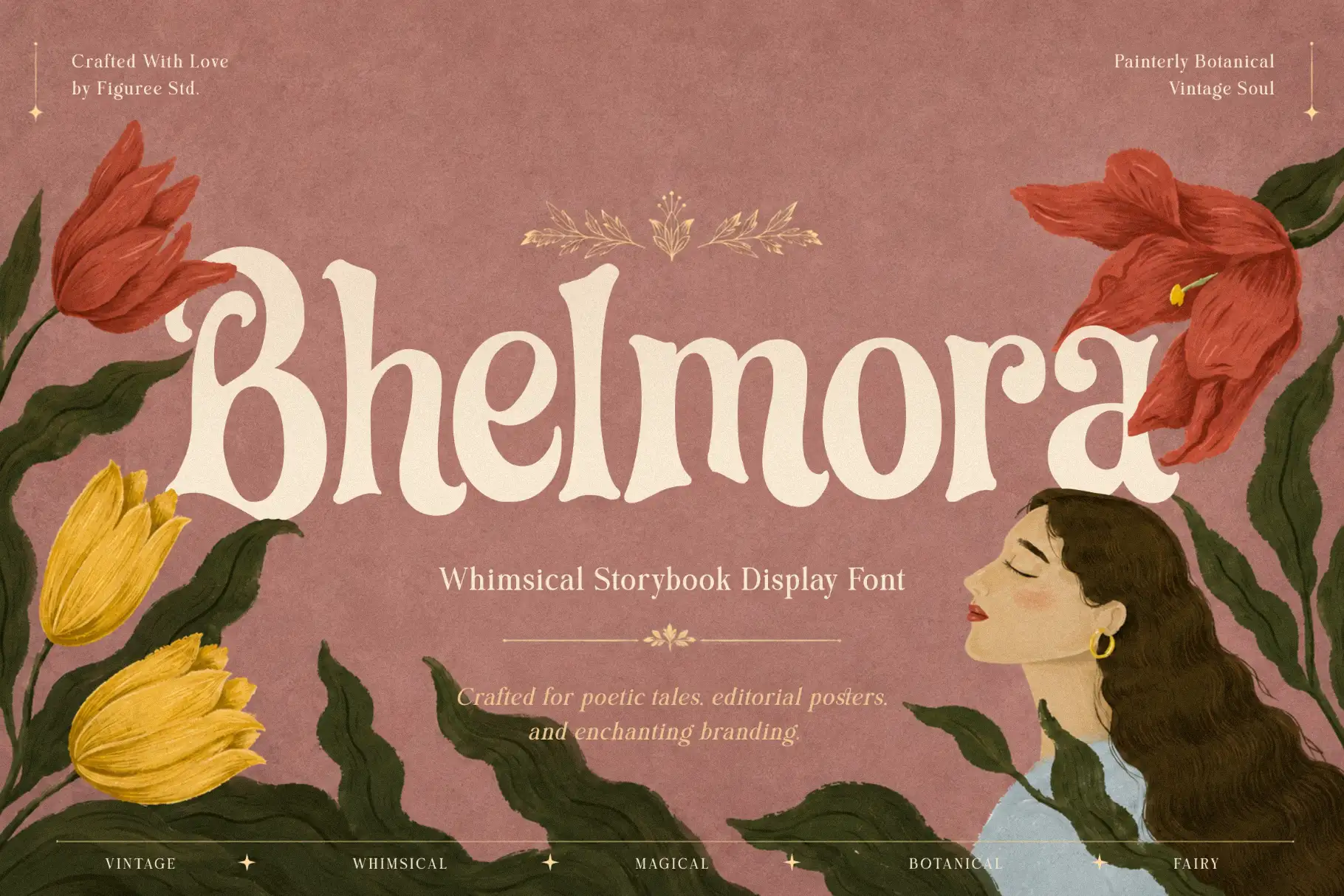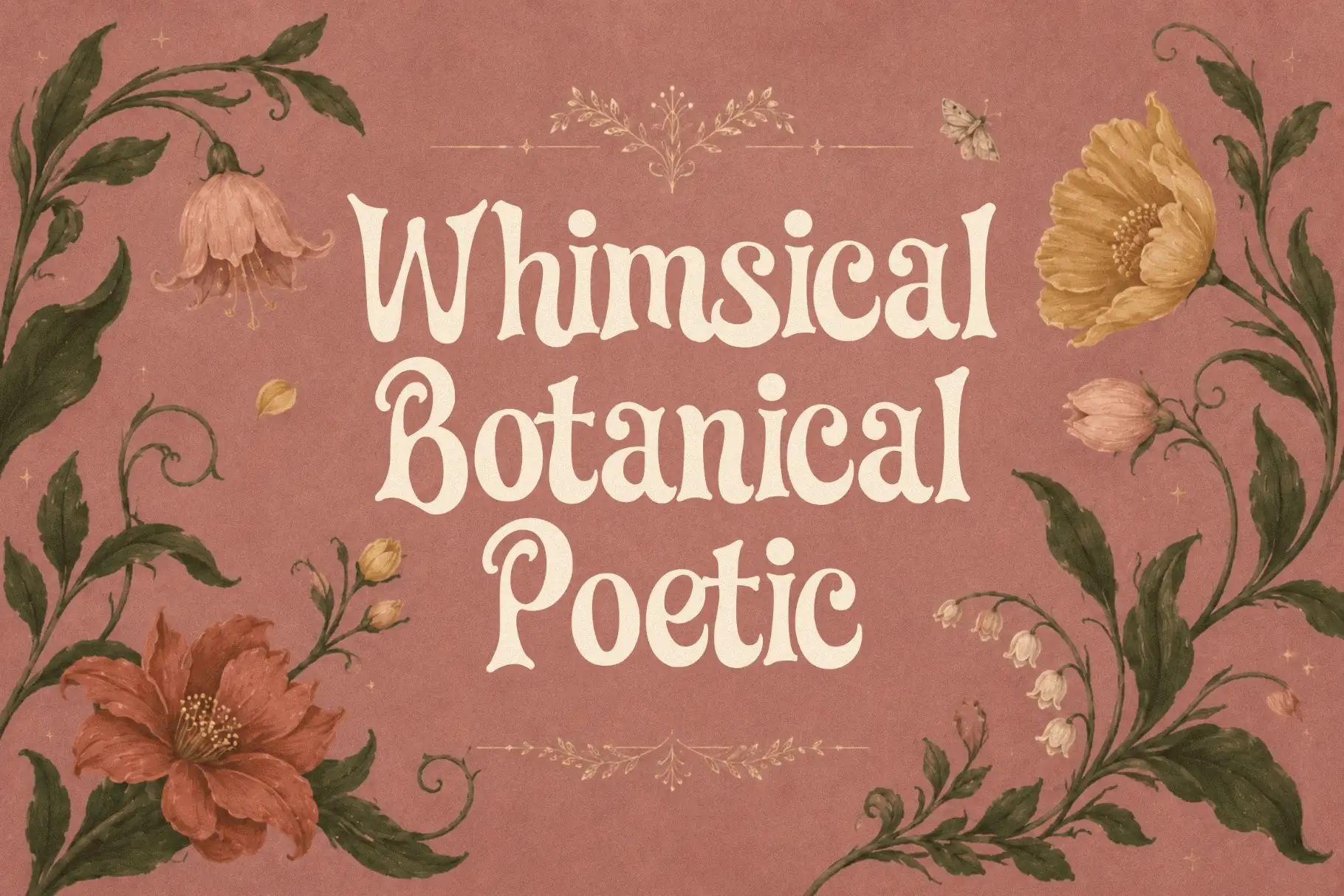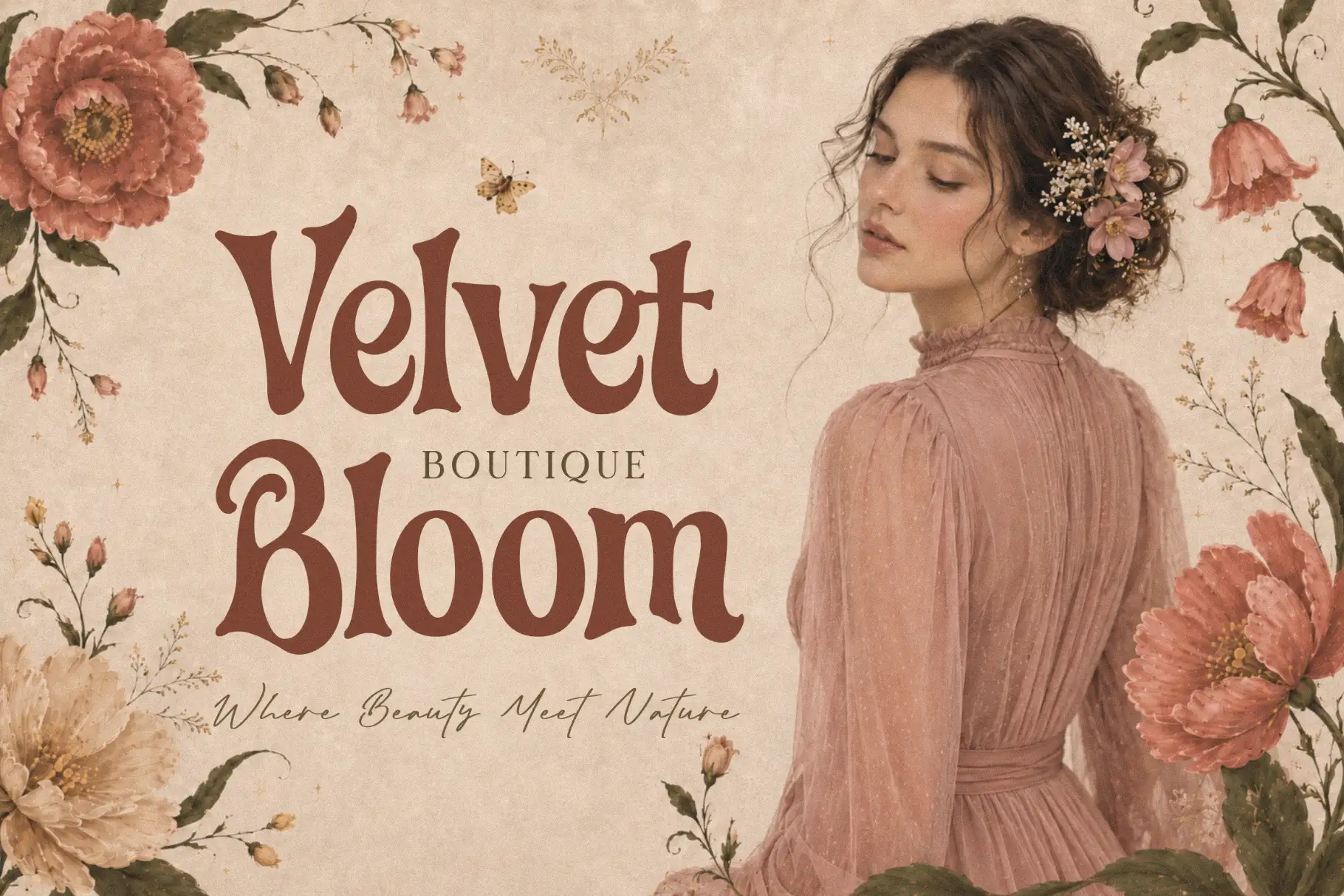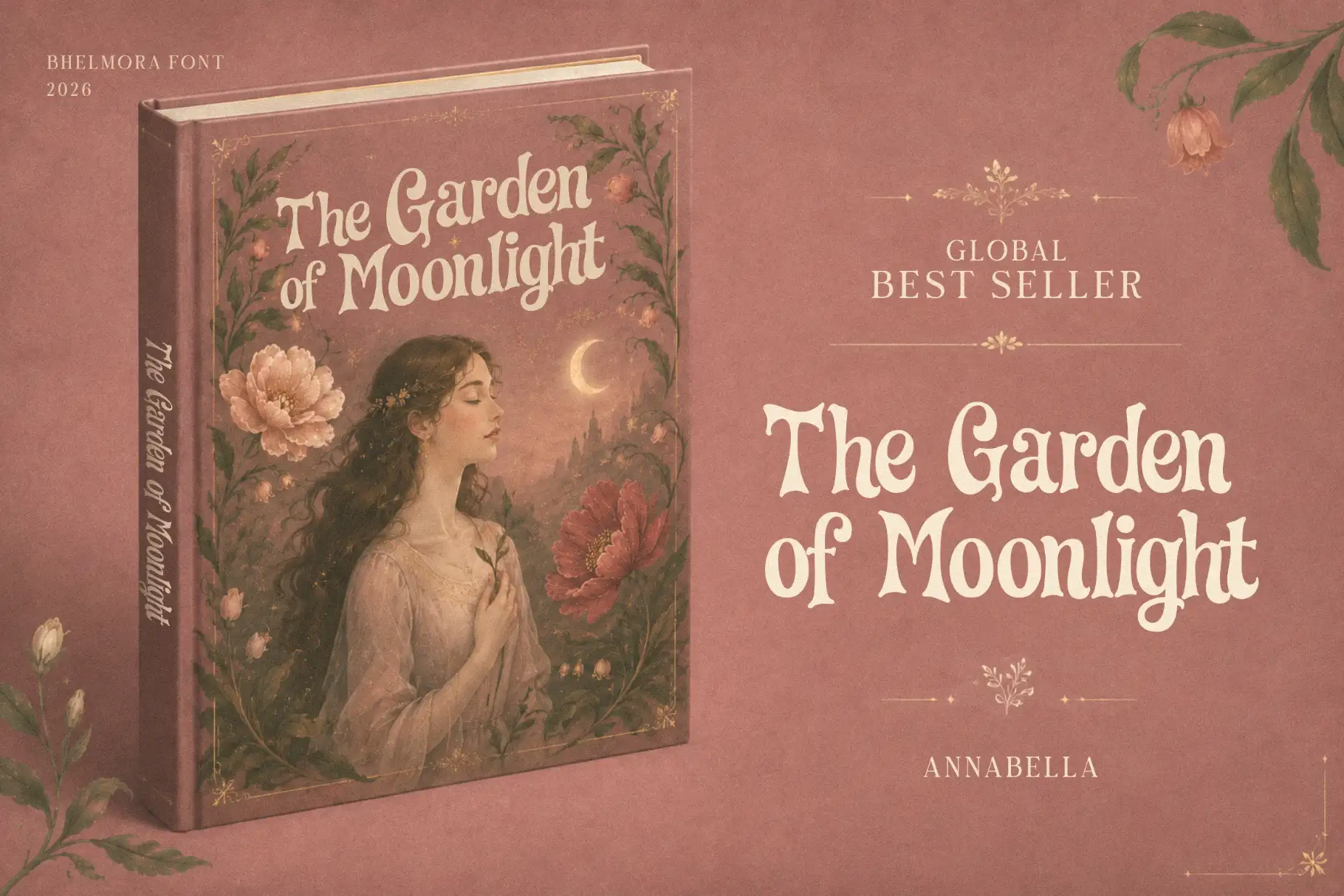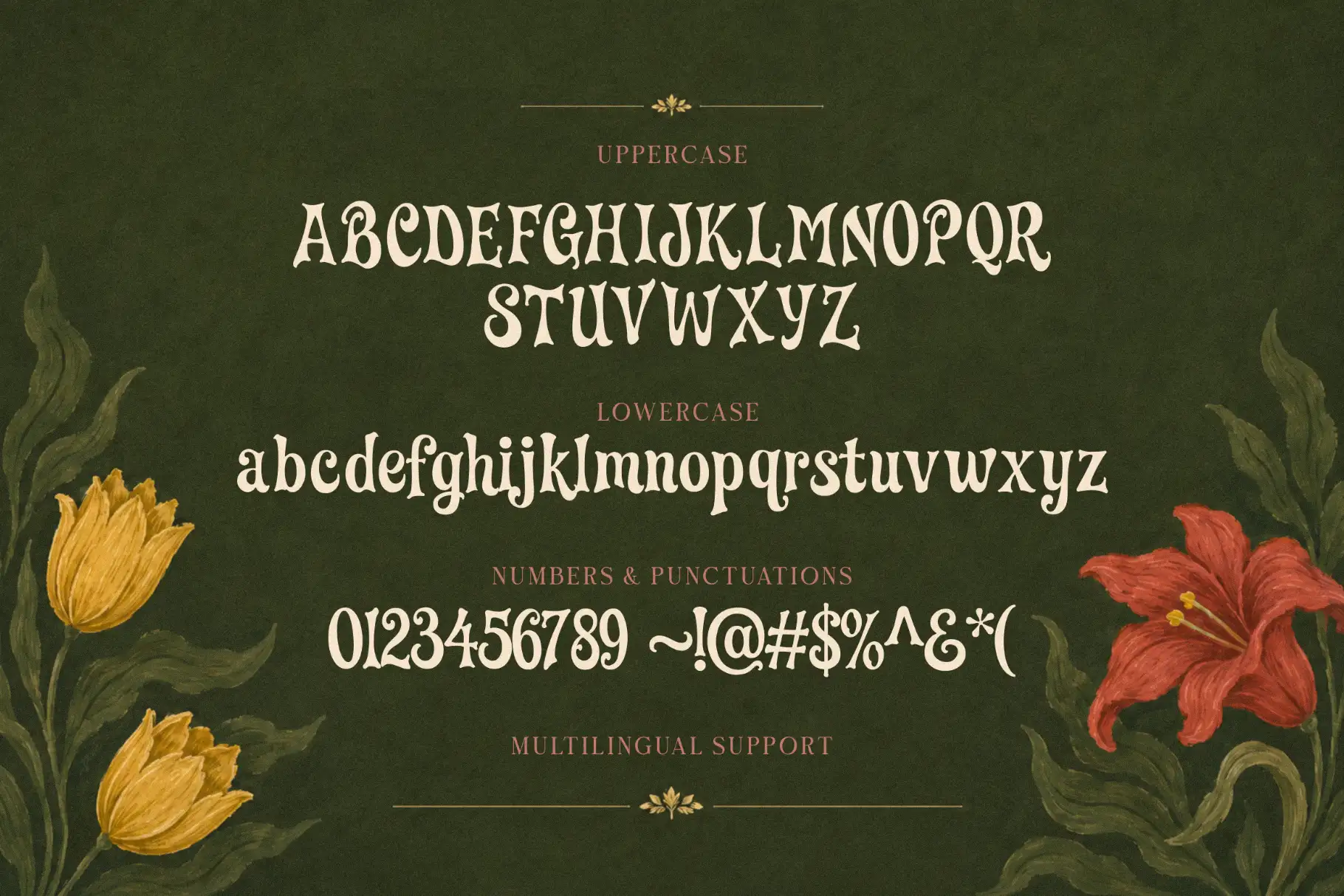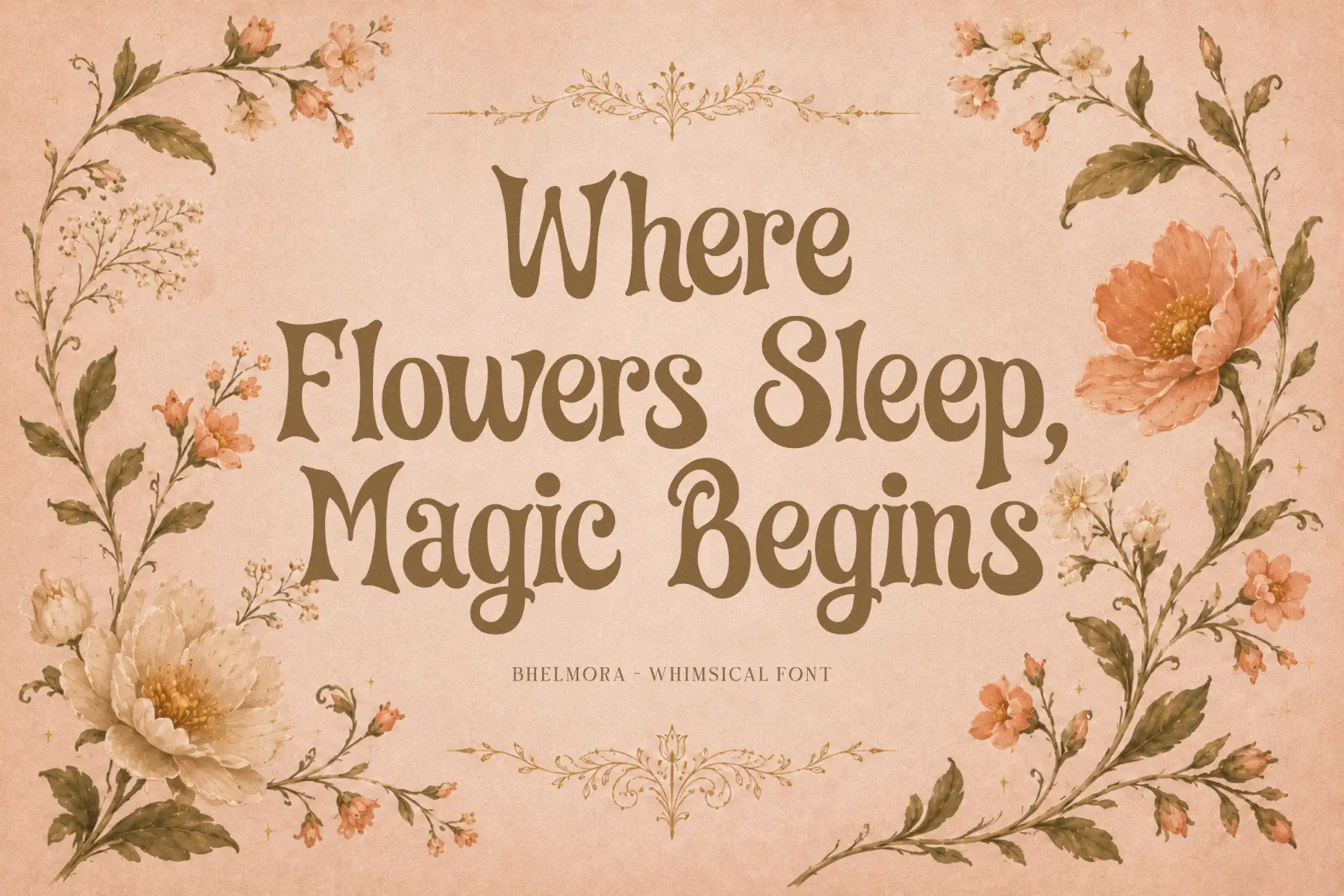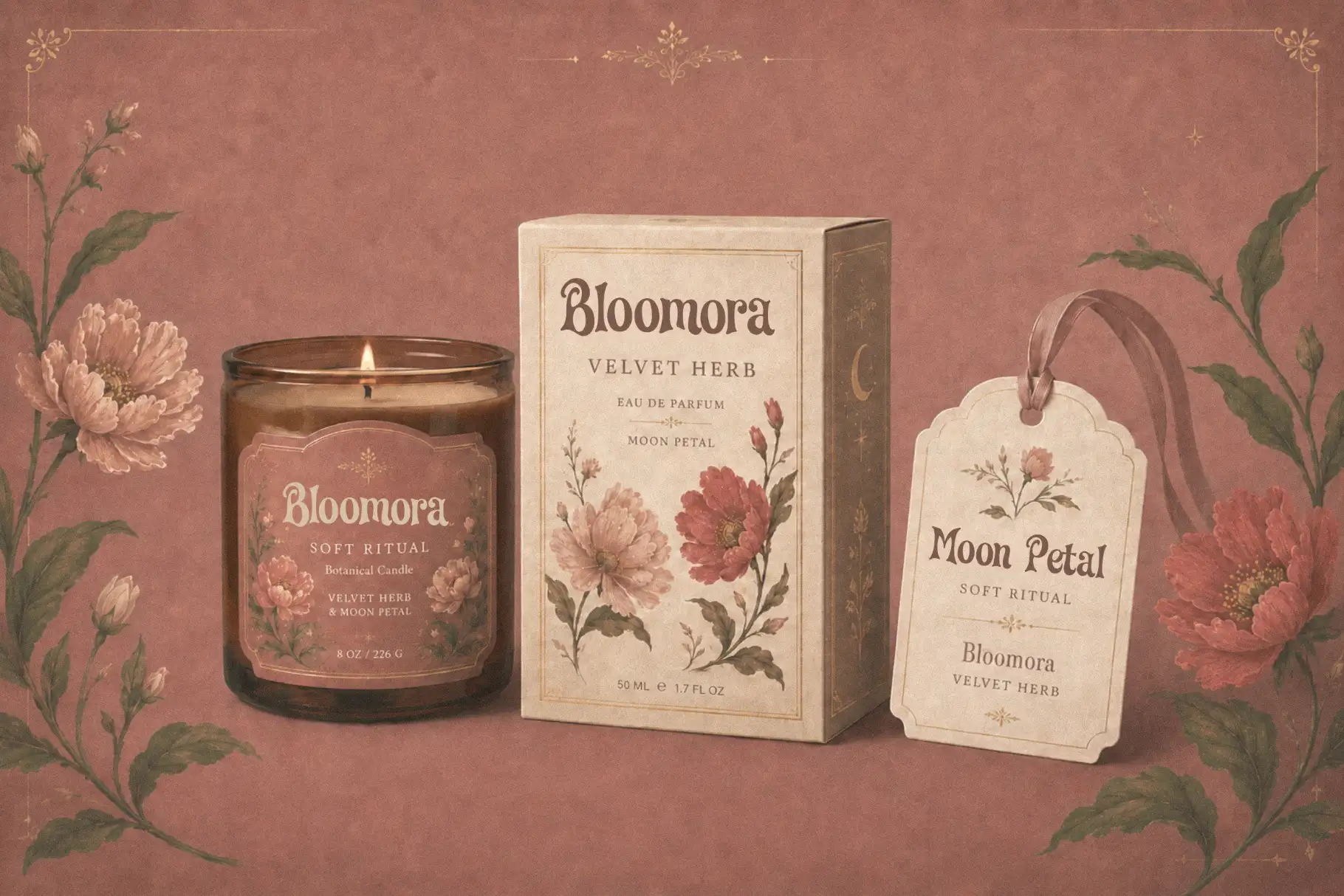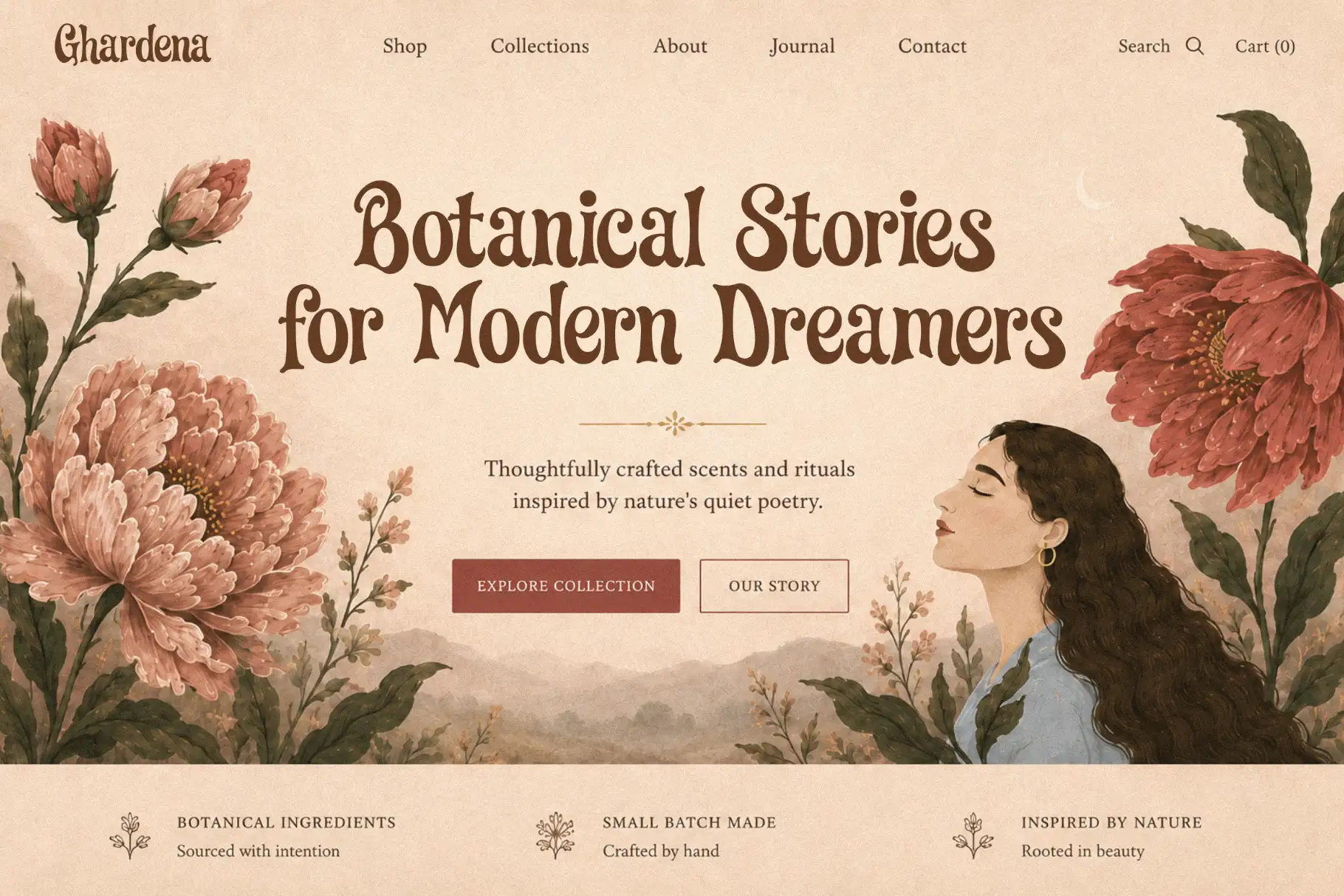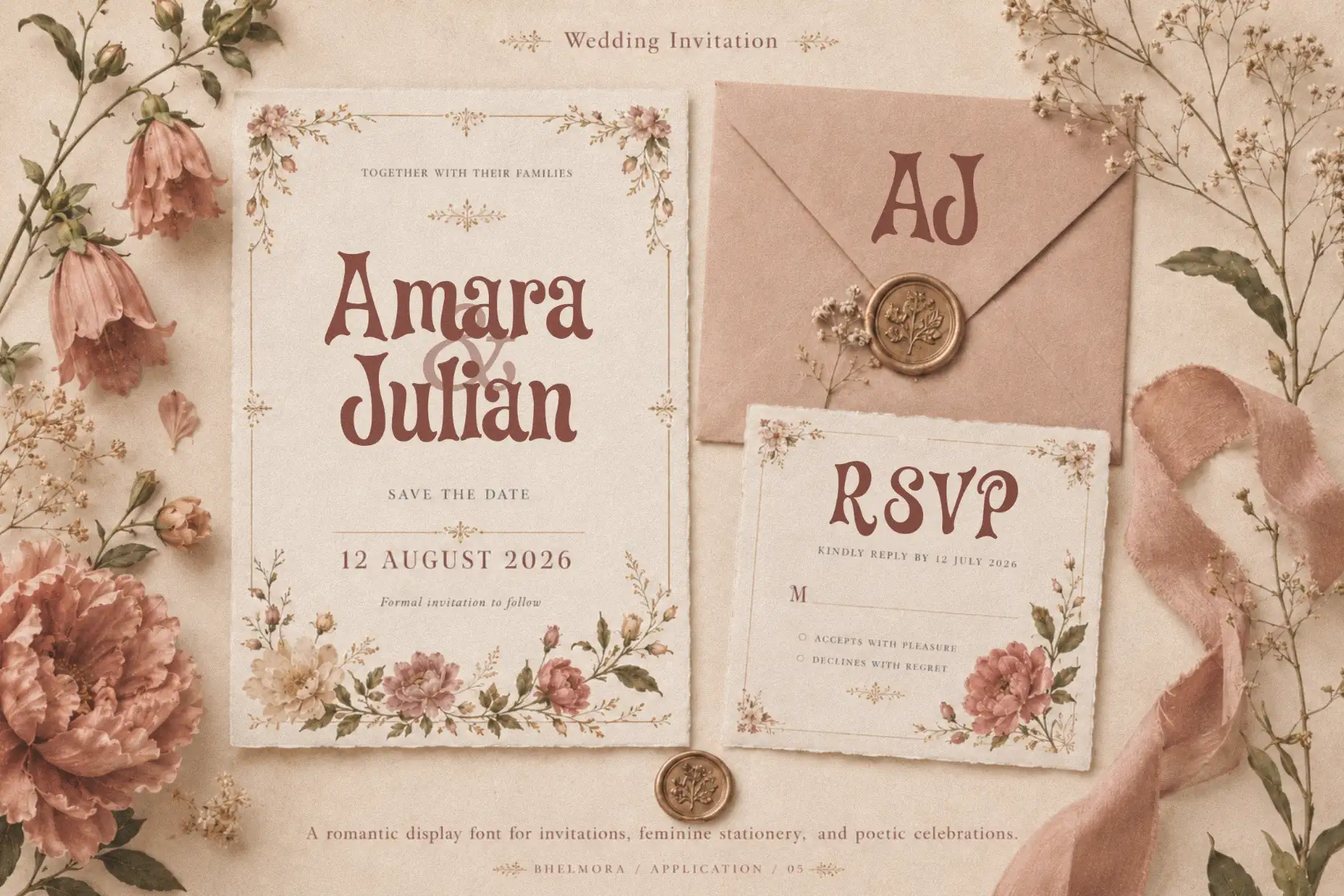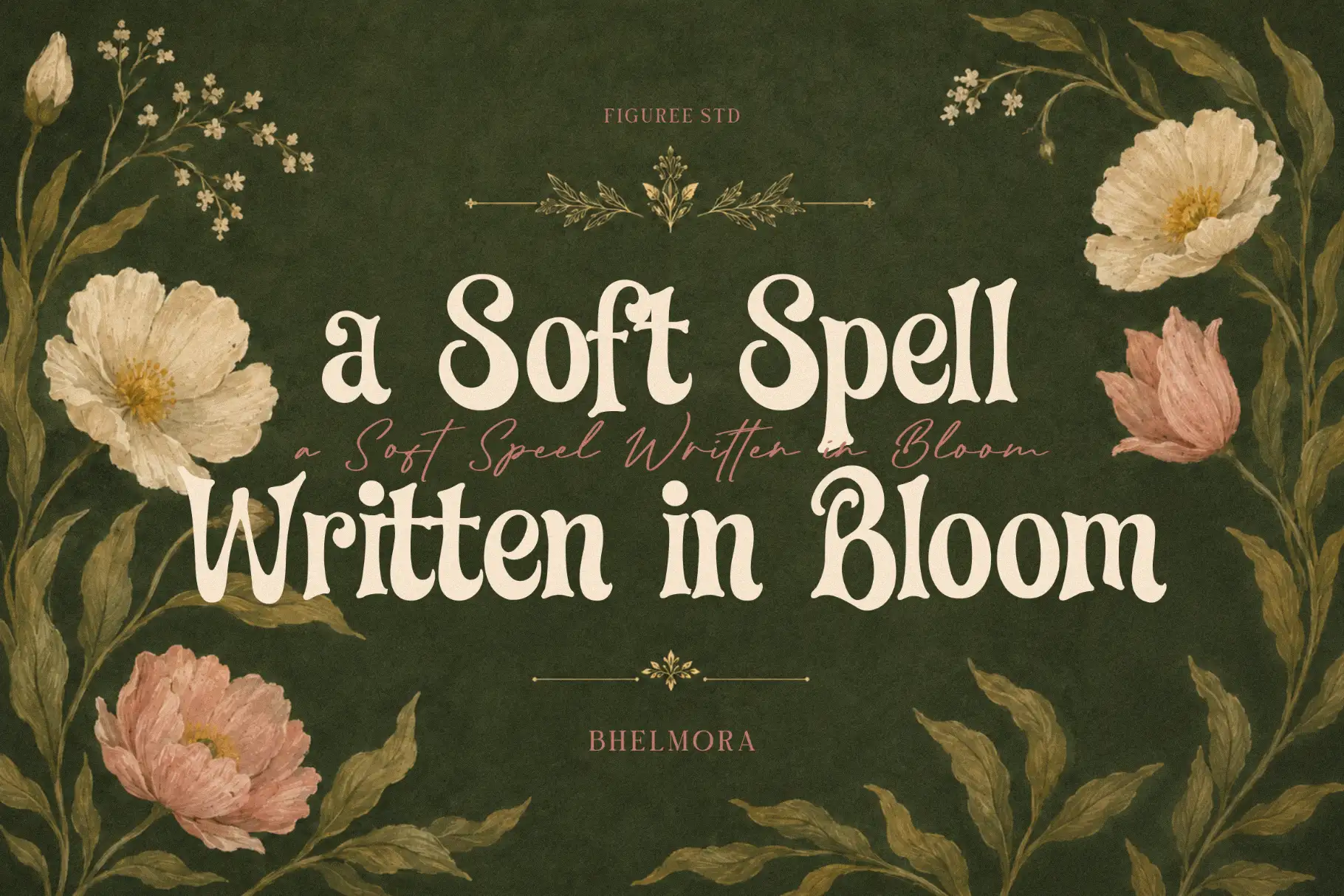
Bhelmora Whimsical Display Font for Playful Creative Projects
Bhelmora whimsical display font is designed for creatives who want typography with personality, movement, and a lighthearted visual mood. It brings a charming display style to projects that need to feel expressive without losing clarity. Whether you are building a cheerful brand identity, designing product packaging, creating poster artwork, or preparing social media graphics, Bhelmora gives your words a more memorable visual presence.
This font is a strong choice for designers, brand owners, crafters, content creators, packaging designers, and digital product sellers who want their typography to feel friendly, imaginative, and distinctive. It works beautifully when the design needs to look warm, creative, and approachable rather than plain or corporate.
Bhelmora is especially useful for headline-focused layouts. Use it for titles, logo text, short phrases, product names, sticker designs, greeting cards, quote graphics, and other display typography where the lettering becomes part of the visual story.
Bhelmora carries a whimsical display personality with a playful rhythm and expressive character. The style feels imaginative and crafted for designs that want to stand out with charm. It is not a quiet background font; it is made to be seen, noticed, and remembered.
Its display nature makes it suitable for creative layouts where typography needs to create an instant mood. Bhelmora can help a brand feel more joyful, personal, and visually inviting. It can be used for children-inspired designs, handmade product labels, boutique packaging, lifestyle graphics, seasonal campaigns, and fun promotional visuals.
The font has a friendly tone that can support both digital and print-based creative work. For digital creators, it can bring character to Instagram posts, Pinterest graphics, YouTube thumbnails, digital stickers, printable art, and online shop banners. For print designers, it can support packaging, labels, greeting cards, posters, stationery, apparel graphics, and craft projects.
Best Use Cases
Bhelmora is ideal for designs that need a playful display font with a creative personality. It works well for branding projects that want to look charming and approachable, especially for small businesses, handmade shops, children-related products, gift packaging, lifestyle brands, and creative studios.
Use Bhelmora for logos when the brand direction calls for warmth and originality. It can give a business name a more expressive look, especially when paired with a clean supporting font for subtitles, descriptions, or product information.
For packaging design, Bhelmora can help product names feel more inviting. It is suitable for labels, boxes, tags, stickers, and promotional inserts where the headline needs to catch attention quickly.
For content creators, Bhelmora is useful for quote graphics, social media templates, reels covers, blog headers, and printable designs. Its whimsical personality can make short phrases feel more emotional, cheerful, and visually engaging.
Key Features
- Uppercase and lowercase characters
- Numbers and punctuation
- Multilingual support
- Suitable for display typography, branding, packaging, posters, quotes, and social media visuals
Designers love fonts that solve a visual problem quickly. Bhelmora helps create a clear mood from the first glance. Its whimsical display style gives projects a more personal and expressive voice, making it easier to build designs that feel friendly, creative, and memorable.
For brand designers, Bhelmora can become a strong starting point for playful identity systems. Use it as the main logo type, then pair it with a simple supporting font for menus, product details, captions, or website text. This balance helps the design feel expressive without becoming overwhelming.
For packaging designers, Bhelmora adds personality to product names and feature callouts. It can help a label feel more handmade, joyful, or boutique-inspired. This makes it useful for small-batch products, kids’ goods, gift items, creative packaging, and lifestyle merchandise.
For content creators and digital sellers, Bhelmora offers a practical way to create scroll-stopping visuals. It can bring character to social media graphics, quote posts, printable templates, and promotional banners without needing a complicated layout.
For crafters, the font’s playful tone works naturally for greeting cards, party decorations, stickers, personalized gifts, and seasonal artwork. It gives simple words a more designed look, helping finished pieces feel more intentional and polished.
Bhelmora is made for creative projects that need warmth, charm, and a memorable display voice. Add it to your font library when you need typography that feels playful, expressive, and ready for real design work across branding, packaging, posters, social media, and crafted visual products.